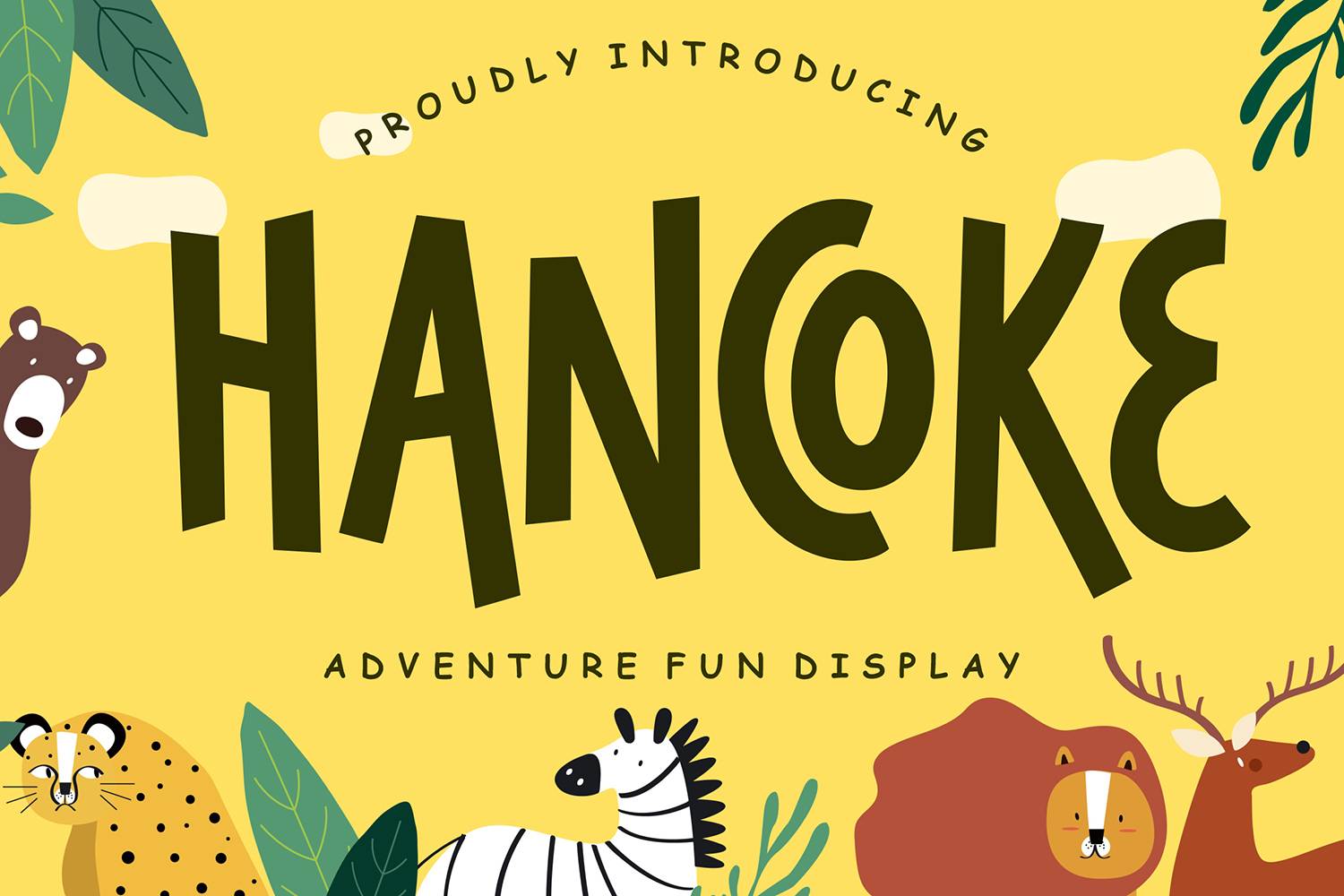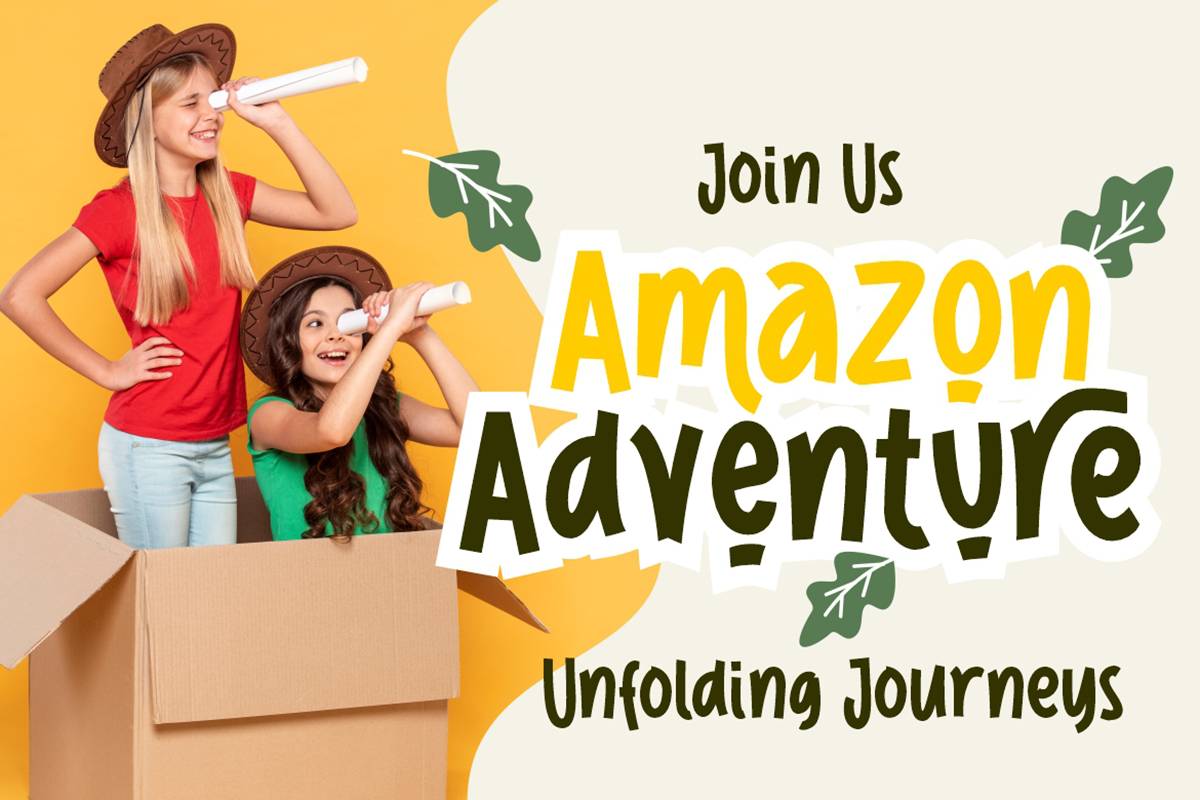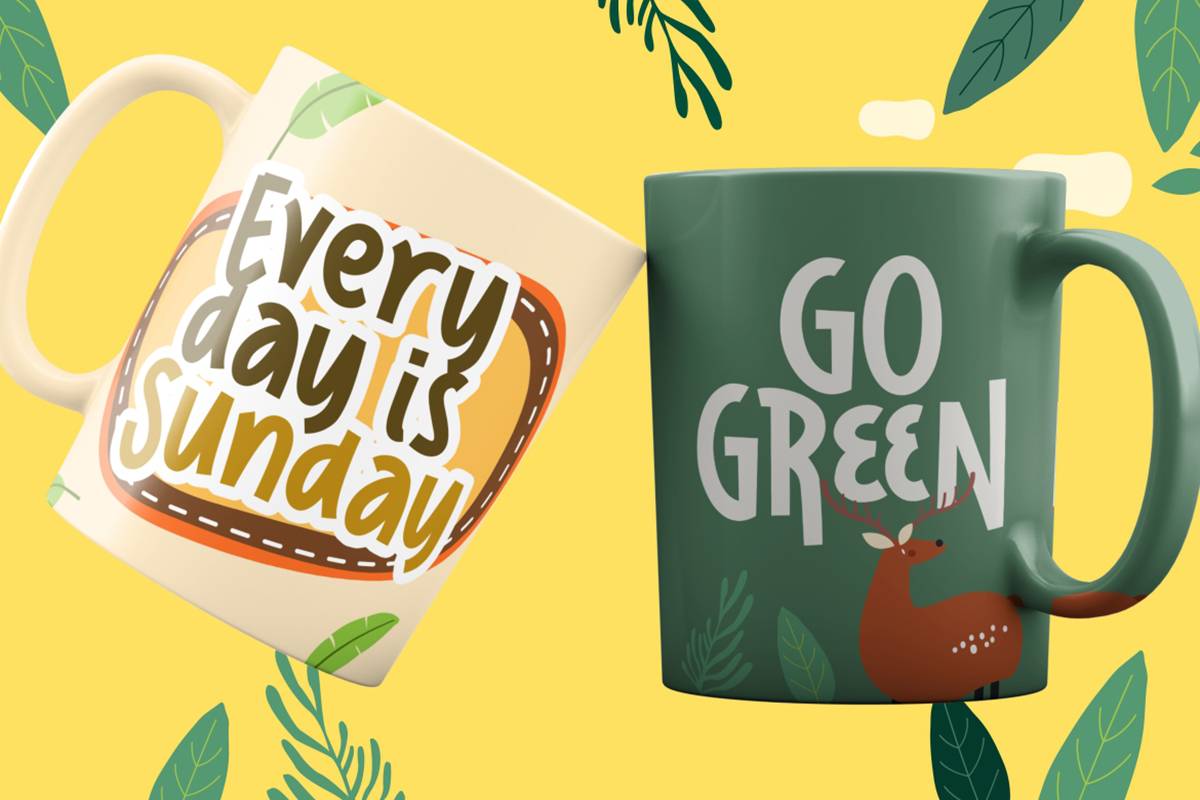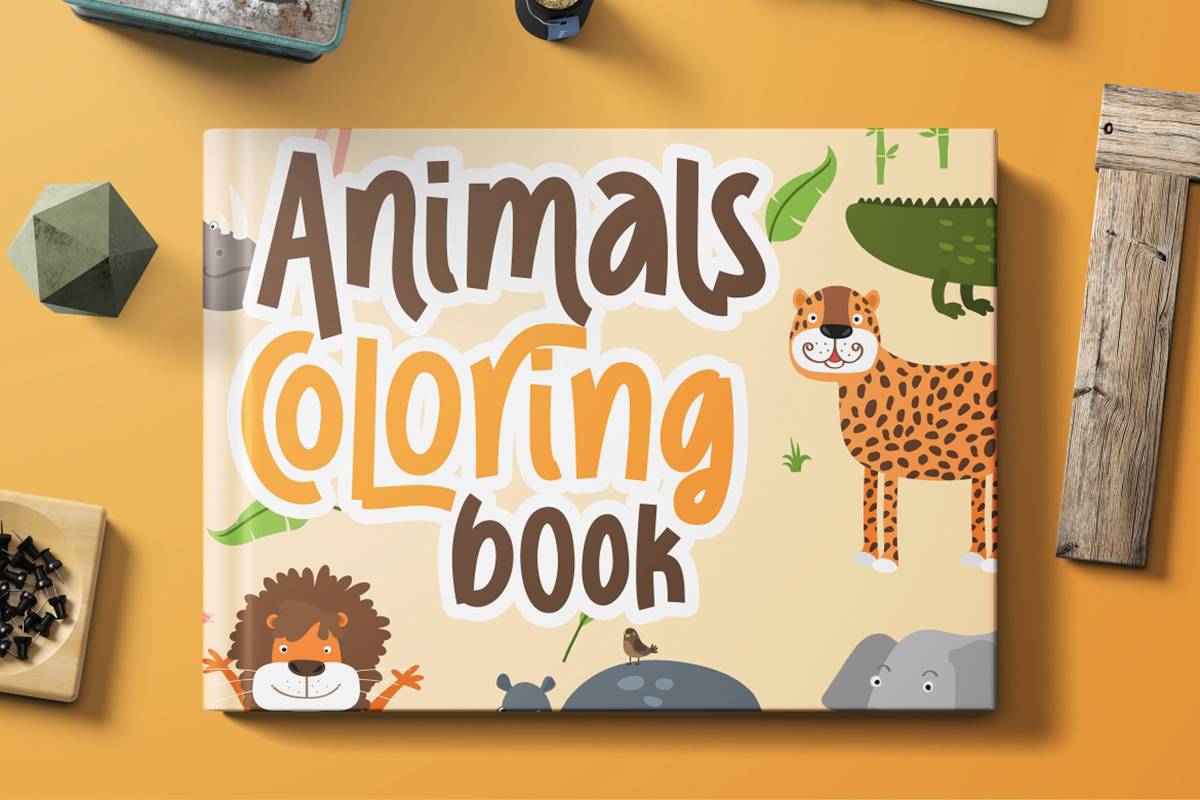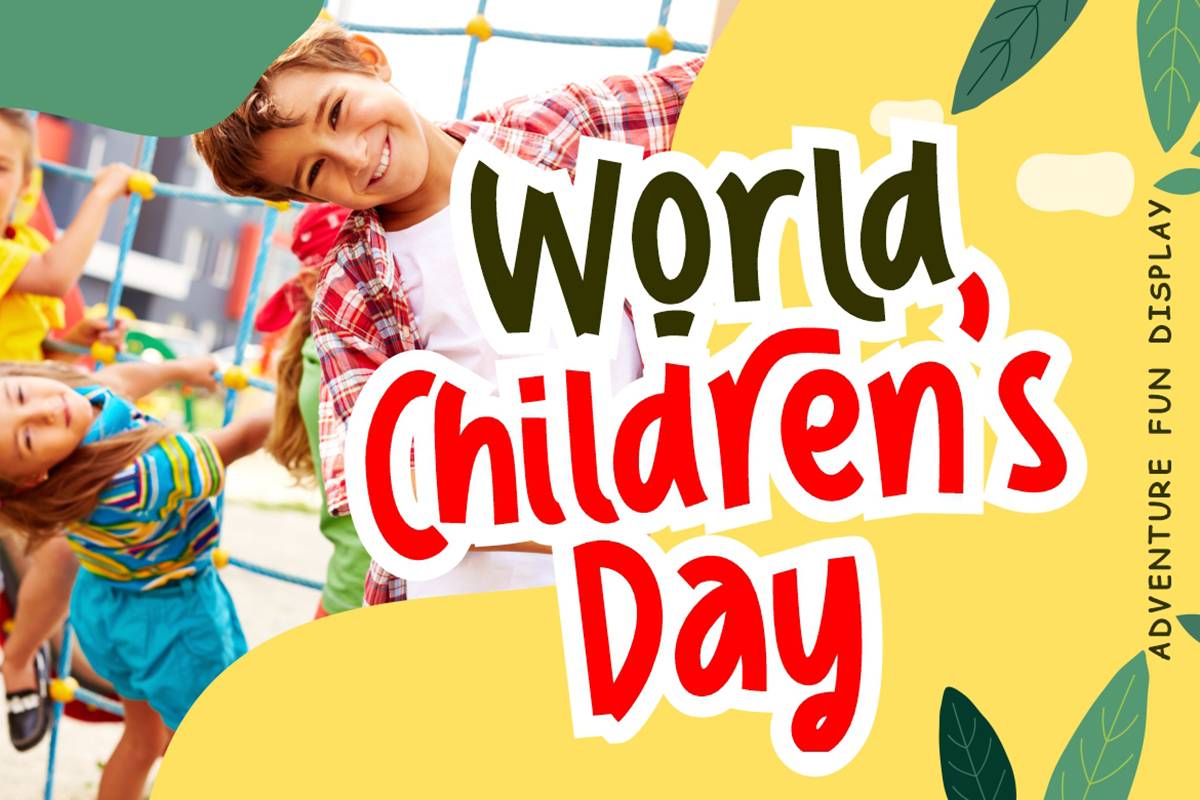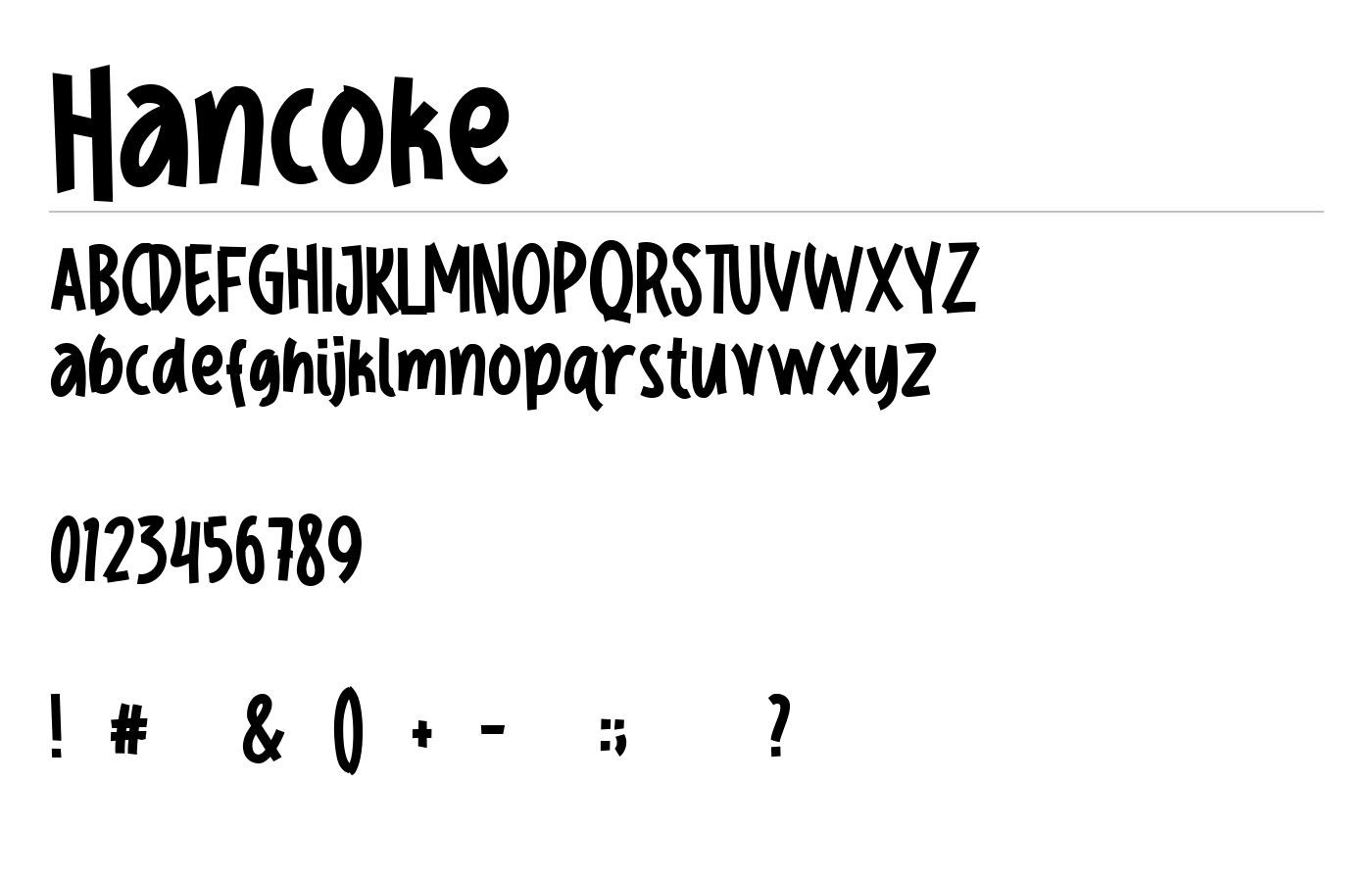
Hancoke is a playful and bold sans serif font with an uneven, hand-drawn style that gives it a friendly and informal feel. Its tall, slightly condensed letterforms and quirky character shapes make it perfect for creative projects, children's materials, or casual branding that aims to capture attention with personality. This font works well in headlines, logos, and posters where a fun, approachable vibe is desired.
Hancoke Font
About Hancoke Font